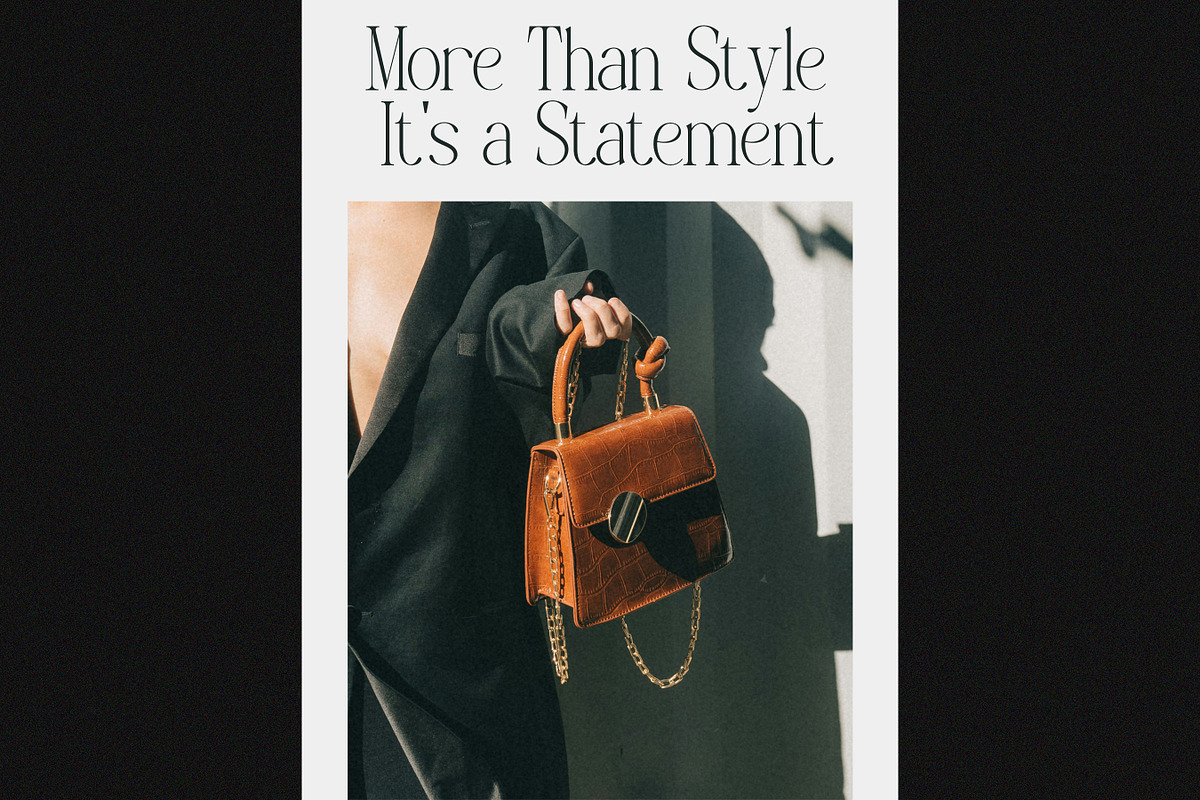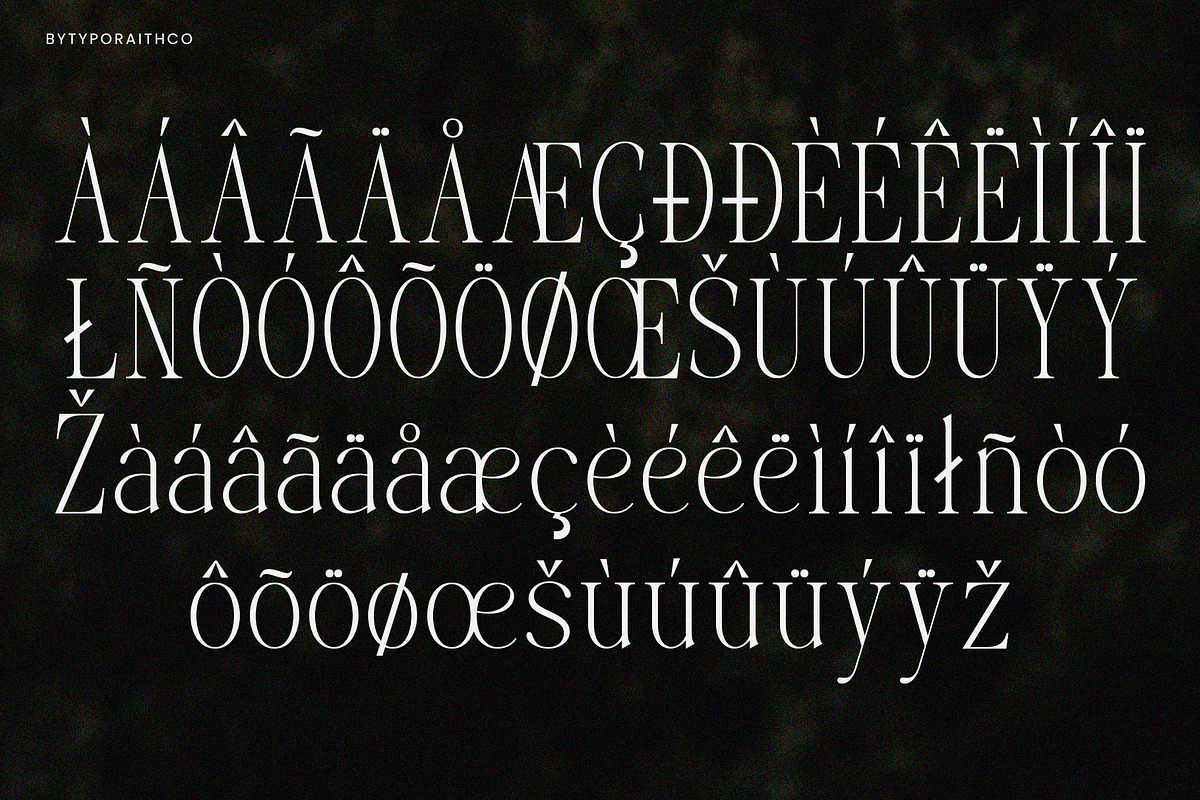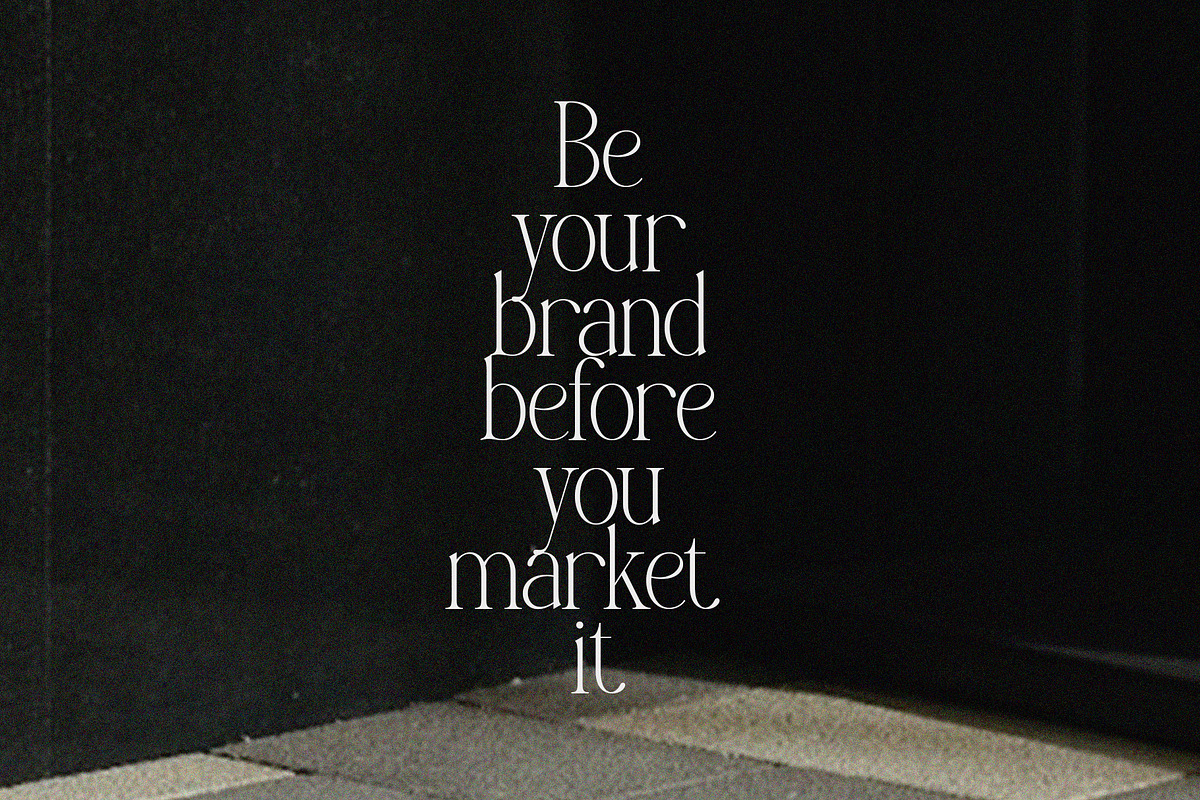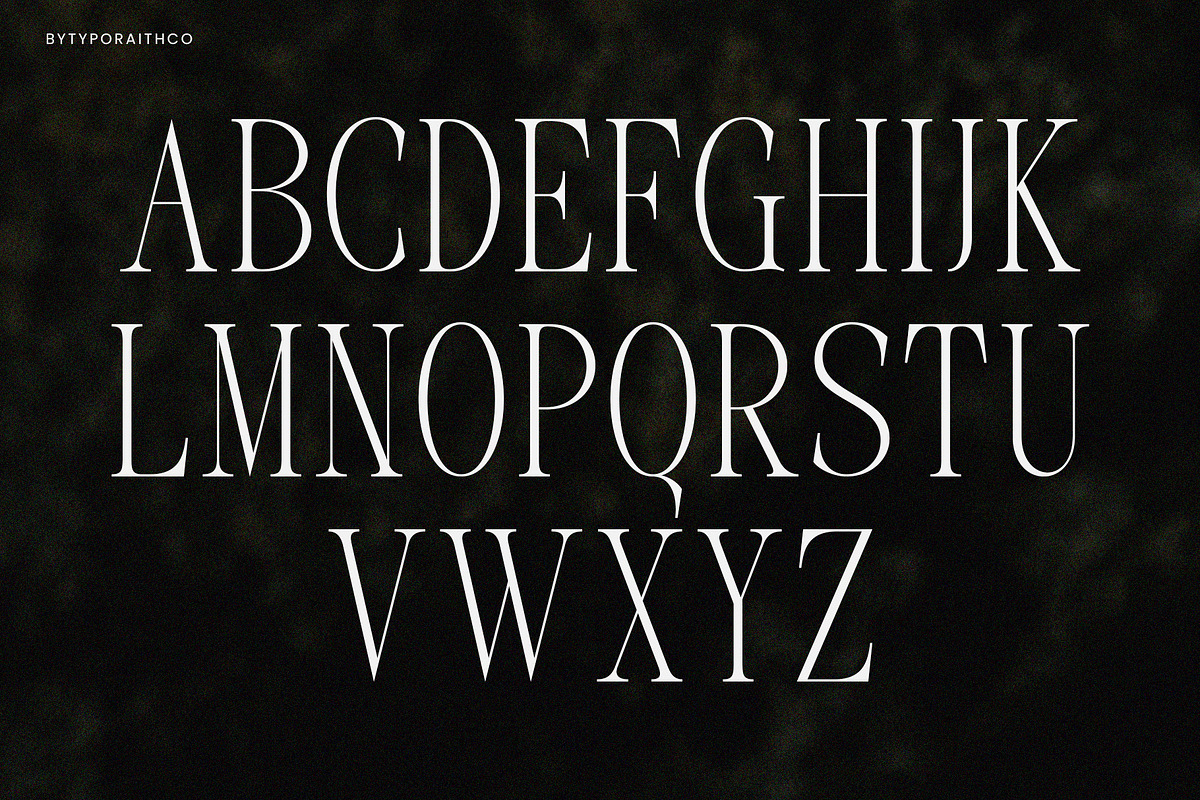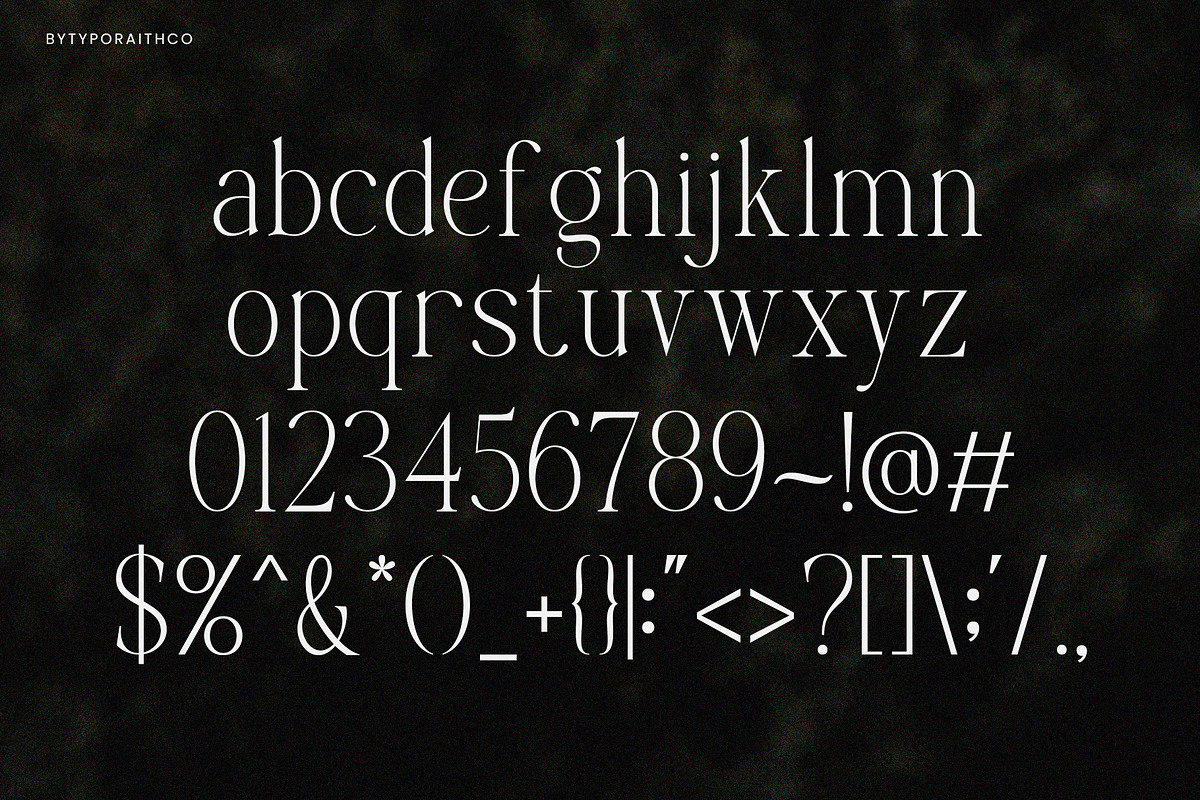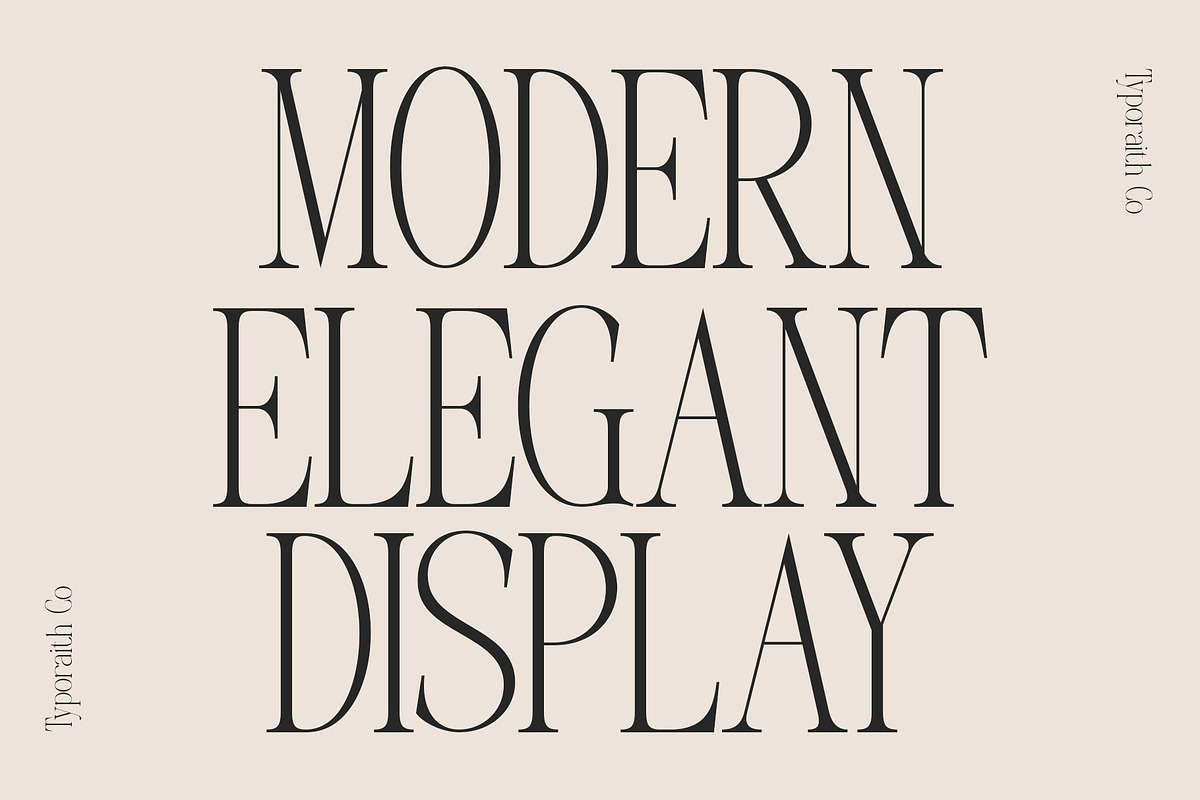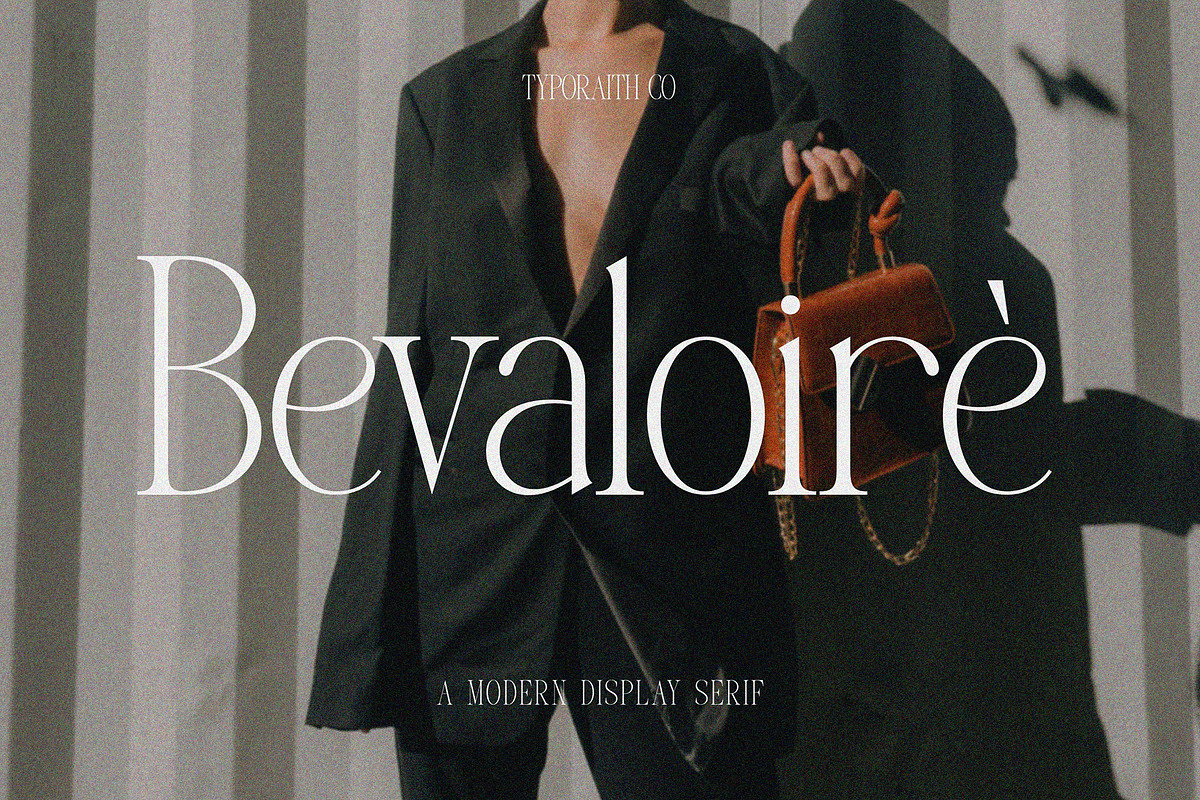
Bevaloire | A Modern Display Serif
Bevaloire is an elegant and stylish display serif font with a contemporary twist. With elegant curves, high contrast strokes, and artistic flair, Bevaloire is perfect for editorial design, logos, packaging, fashion branding, and high-end projects. Its sophisticated look adds a touch of luxury to any visual identity.
Uppercase - Lowercase letters
numbers & punctuation
Stylish and versatile serif design
Add elegance and character to your designs with Bevaloire – a modern serif made for bold expression.